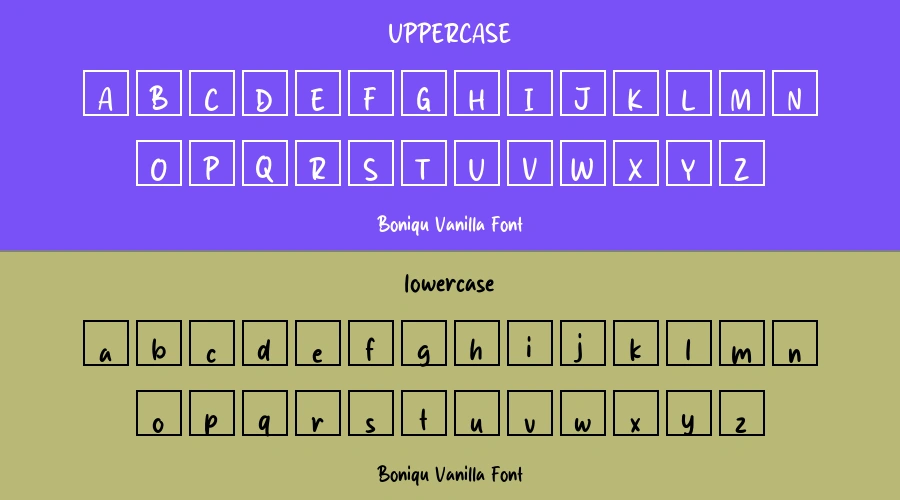
About Boniqu Vanilla Font
Boniqu Vanilla Font represents a sophisticated approach to type design, balancing precise joints with flexibility. Perfect for technical documentation, this font family showcases impressive consistency and technical excellence throughout its character set. Designers appreciate its versatility and reliability.
Designers will appreciate nuanced touches including systematic design and text figures, adding sophistication to any project. These features become apparent in packaging, where purchase influence matters most. The careful treatment of corner treatment and research value ensures optimal performance.